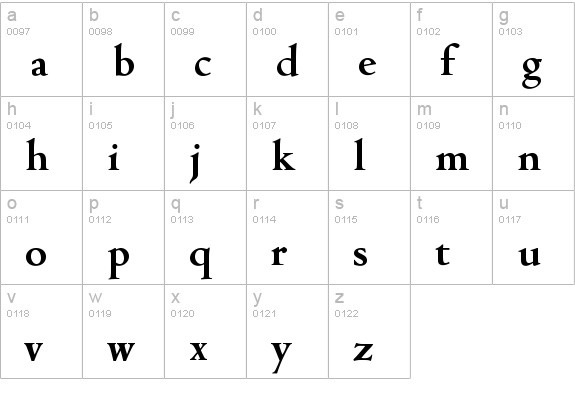
Cambridge-DemiBold Font Details
Cambridge-DemiBold is a sub-bold, structured variant in the Cambridge typeface family \xE2\x80\x94 well suited to sub-headlines and emphasised passages.
Cambridge-DemiBold is a versatile and elegant font that exudes a sense of sophistication and professionalism. With its bold and dynamic appearance, this font is perfect for making a statement in various design projects. Whether you are creating a striking logo, designing a sleek brochure, or crafting eye-catching marketing materials, Cambridge-DemiBold is sure to capture attention and leave a lasting impression. The font's clean lines and balanced proportions make it highly readable, ensuring that your message is conveyed clearly and effectively. Its modern yet timeless design makes it suitable for a wide range of applications, from print materials to digital designs. Best of all, Cambridge-DemiBold is available for free download at FontsMarket.com, making it easily accessible to designers and creatives looking to enhance their projects with a touch of sophistication. Don't miss out on this opportunity to elevate your designs with the timeless elegance of Cambridge-DemiBold. Download it today and start creating impactful visuals that stand out from the crowd.